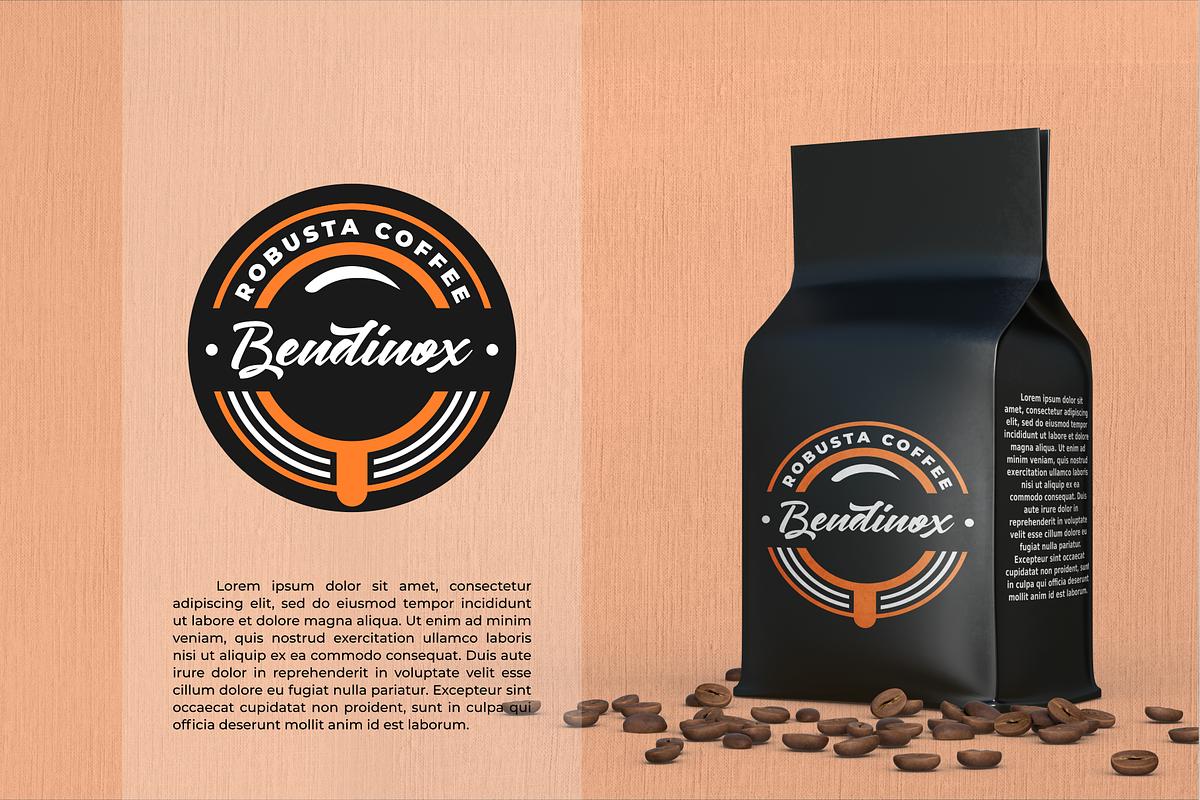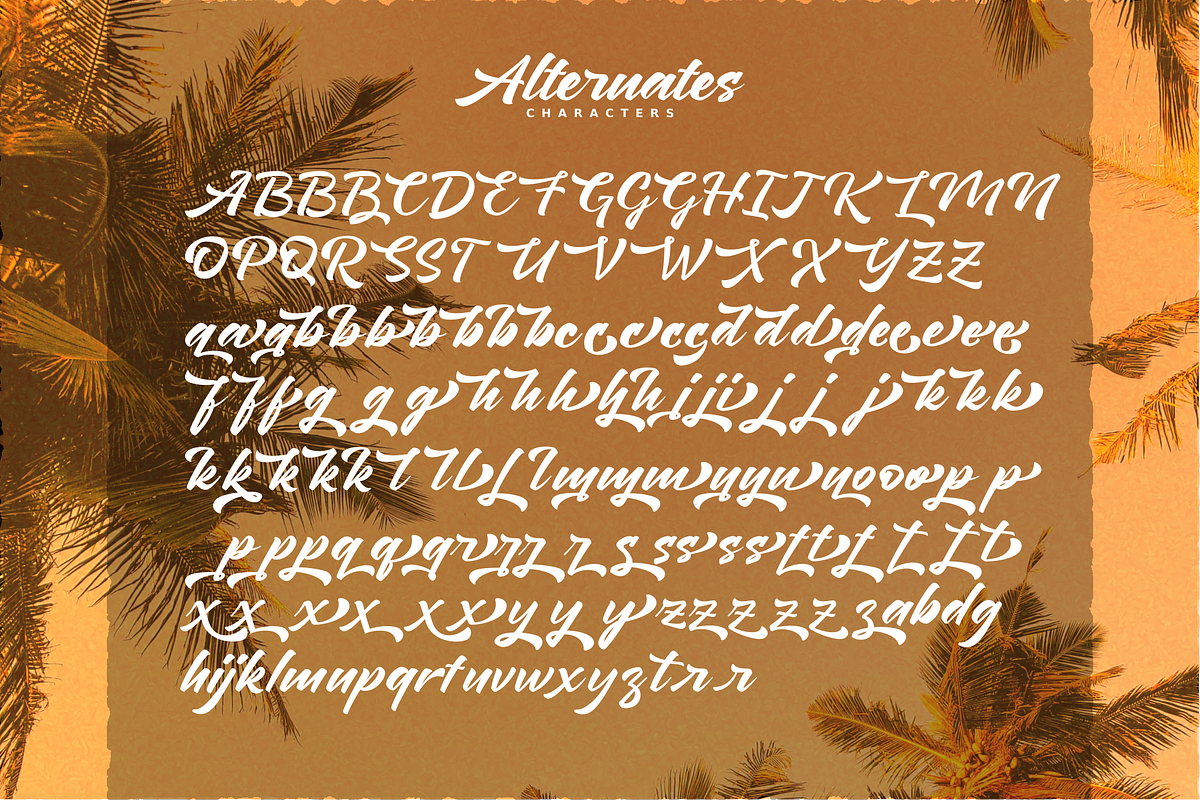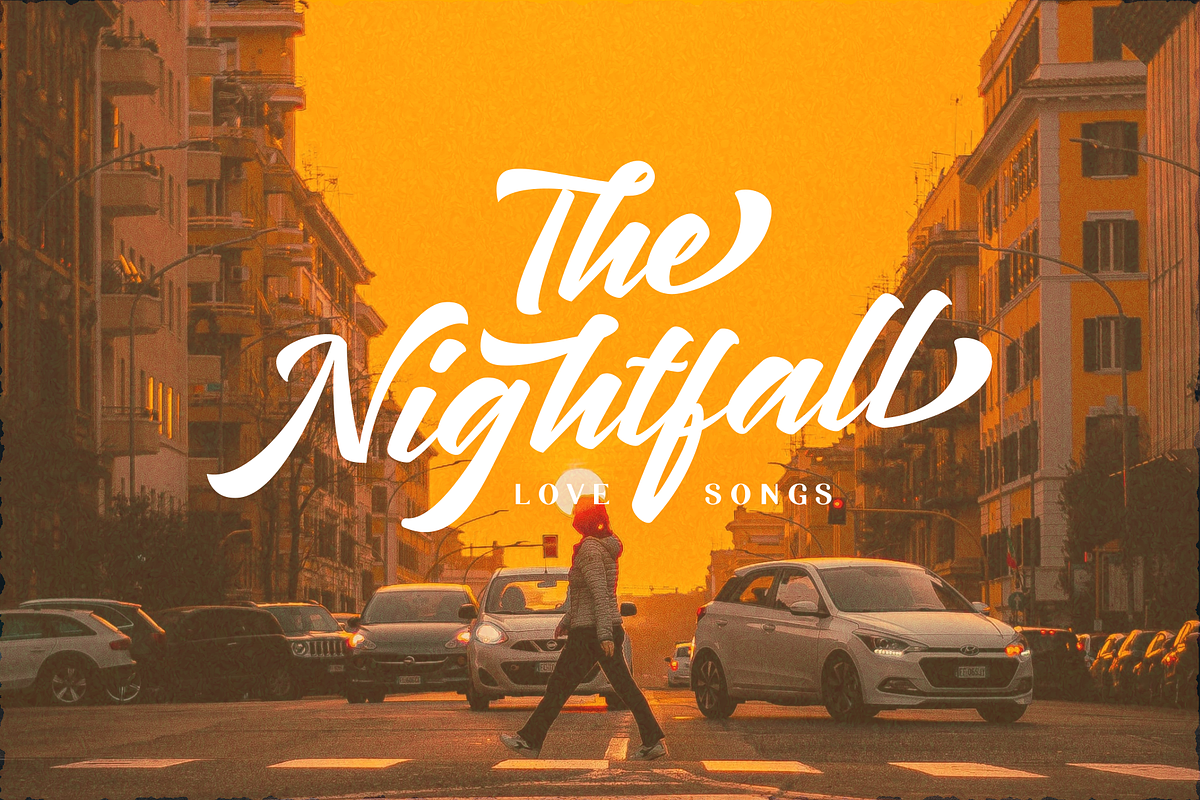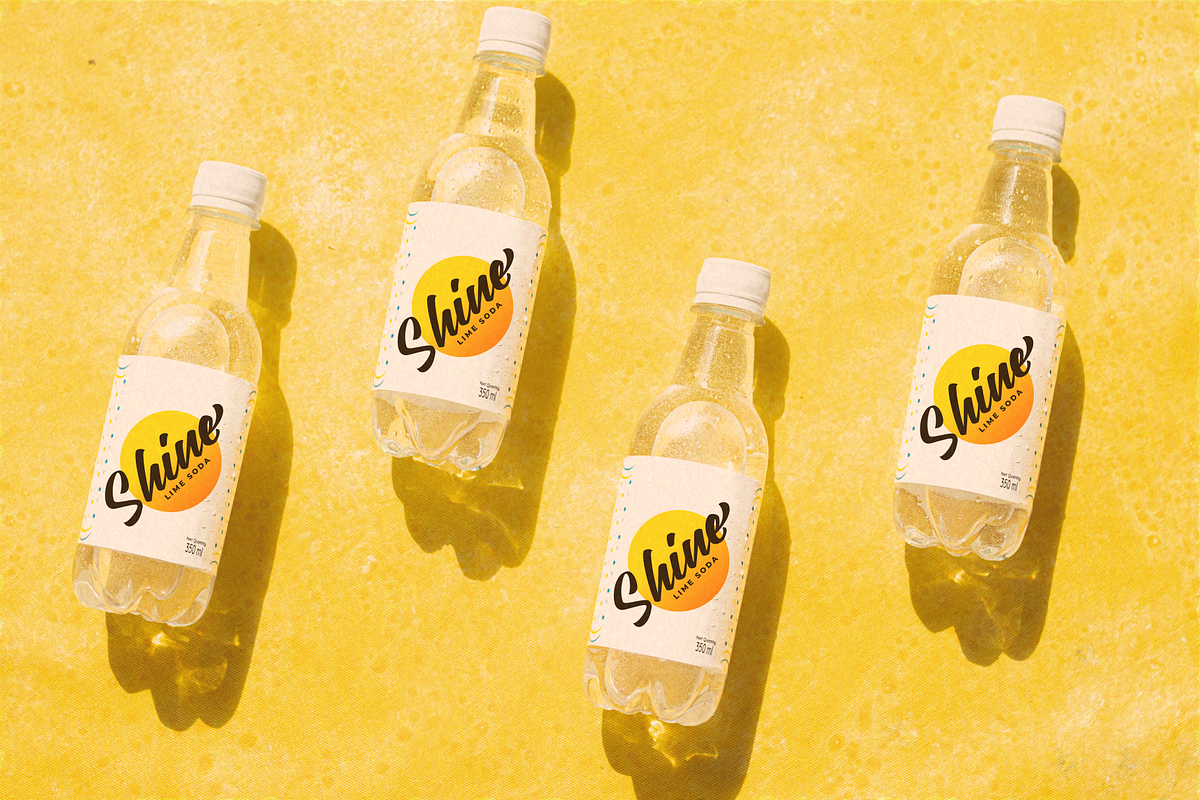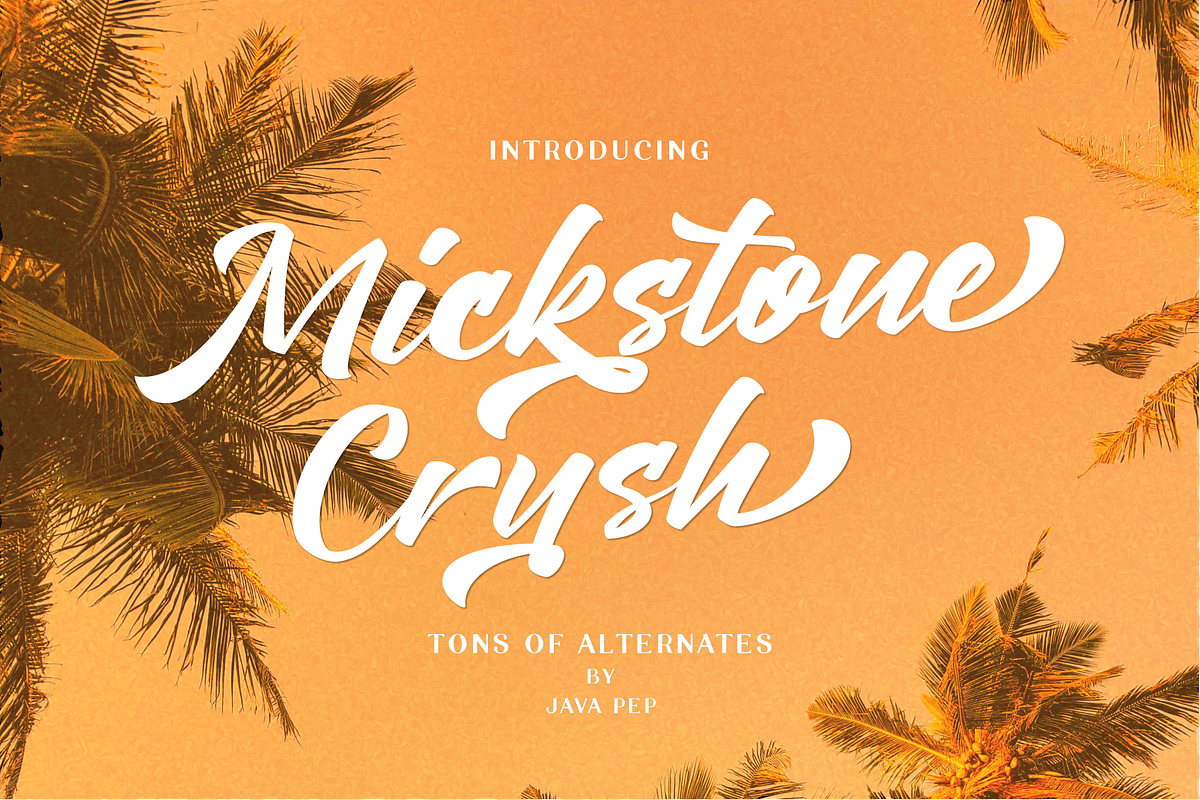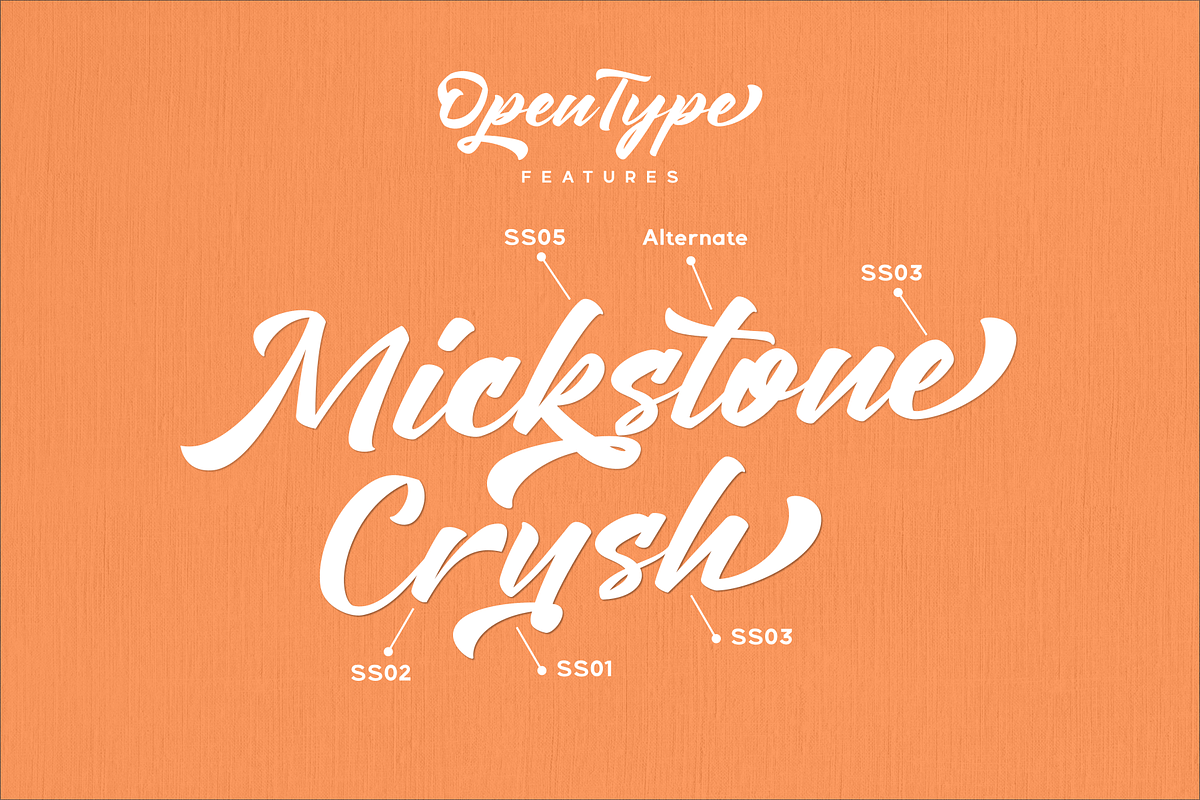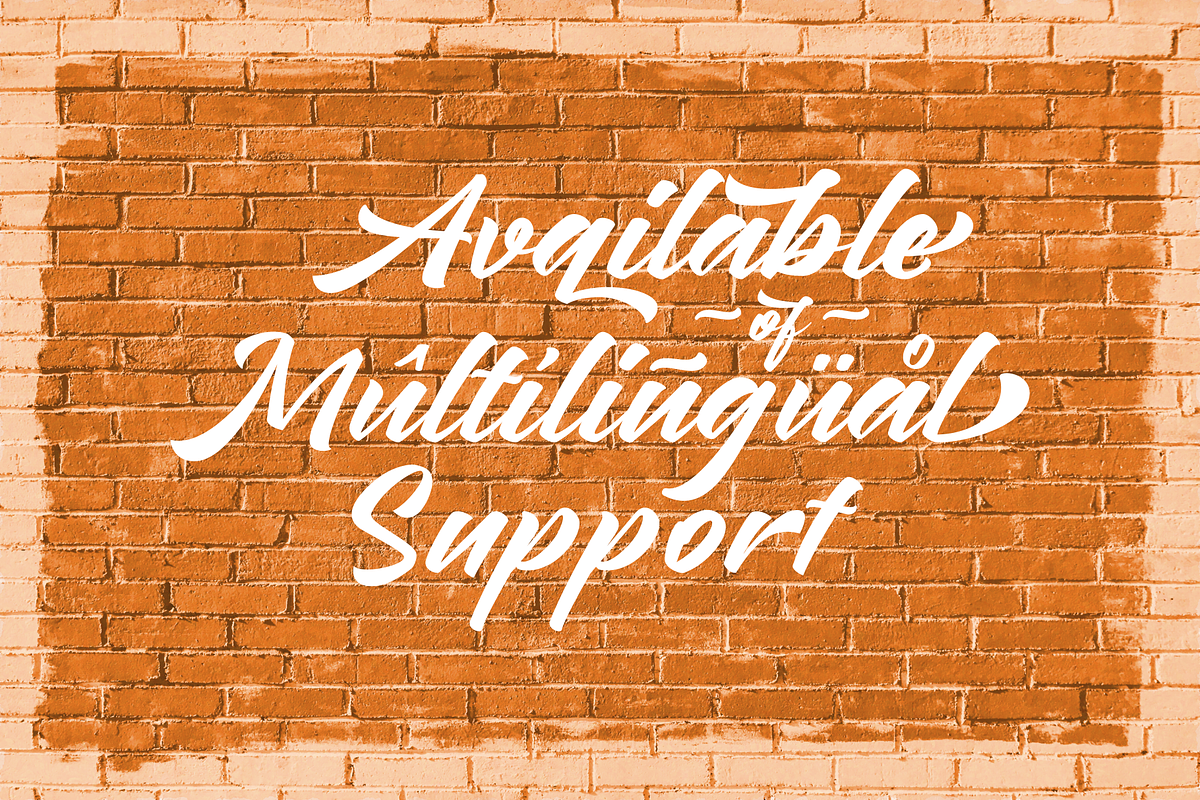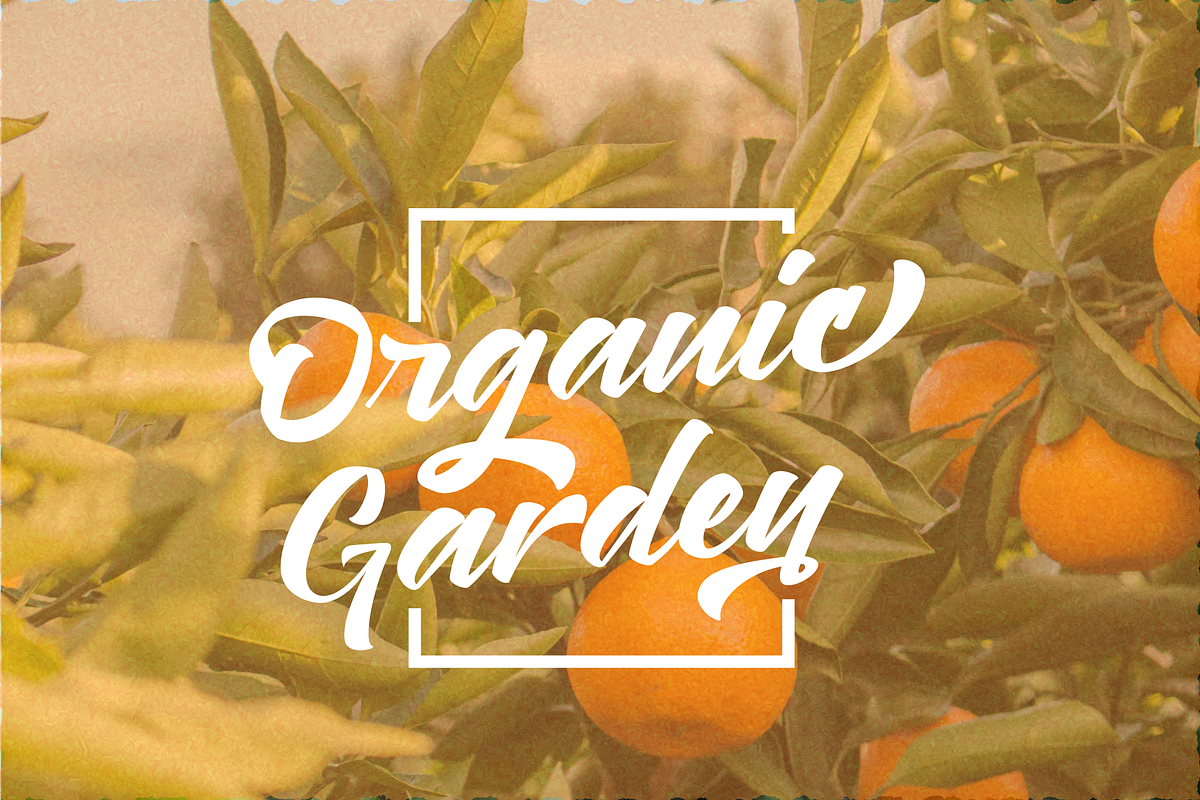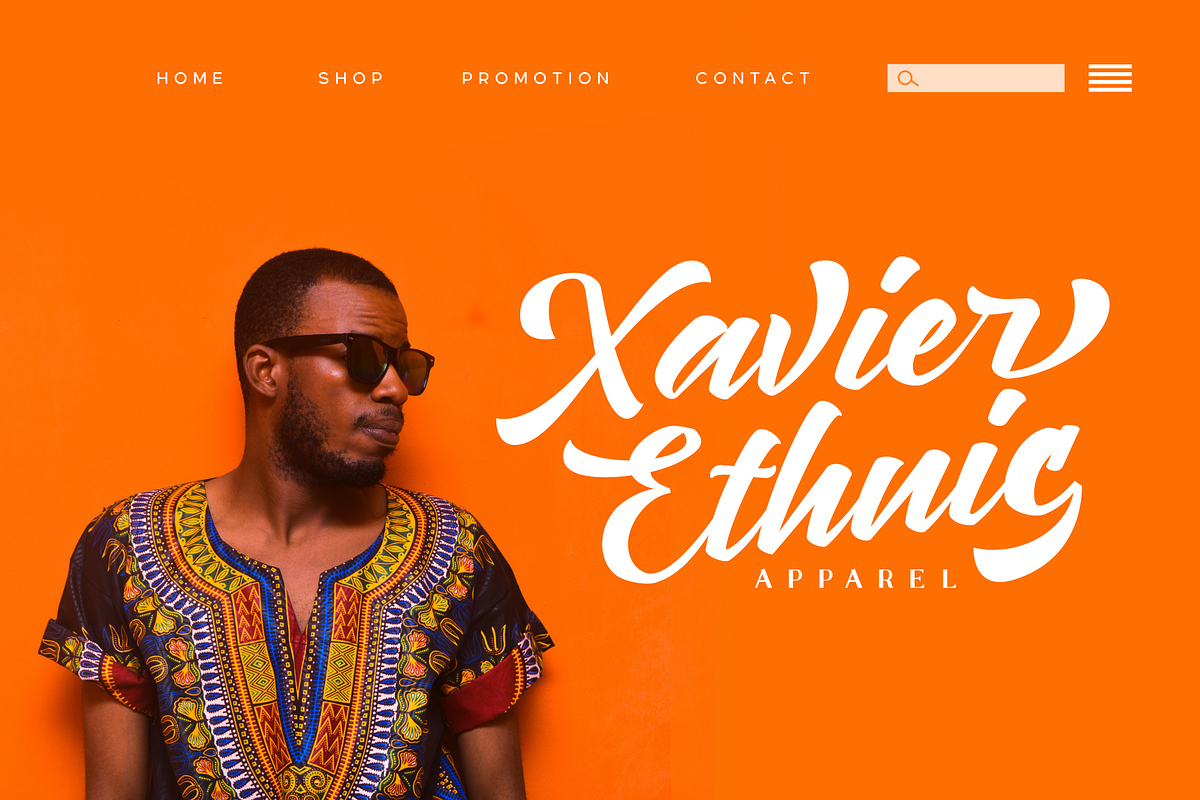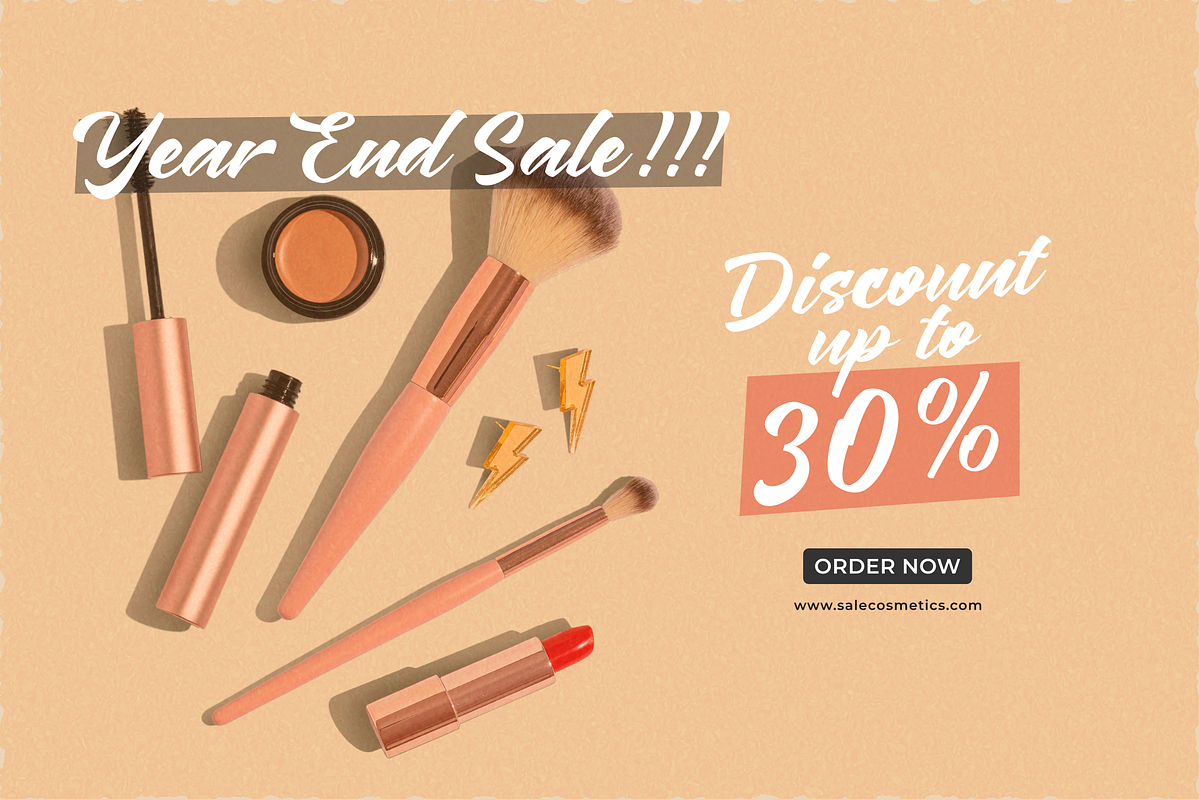
Mickstone Crush / tons of alternates
Introducing Mickstone Crush script font that is equipped with tons of alternates characters starting of uppercase and lowercase. Mickstone Crush font it's perfect for logotype, branding identity, headline text, title, advertising, social media, and etc. Mickstone Crush font is available with multilingual support that is more than 30+ languages.